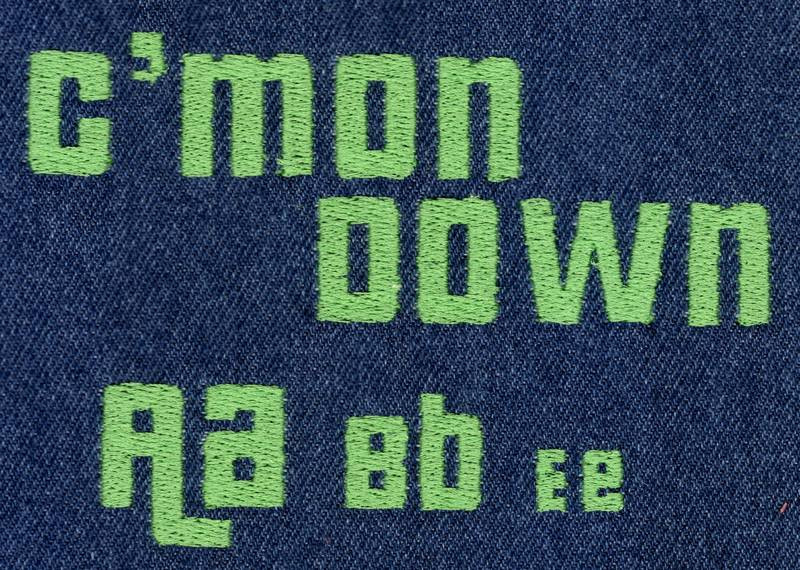
502 C'mon Down Mini Fill Font
C'mon Down Mini Fill Font comes in 0.5", 0.75" and 1" heights. Set height is based on the capital "A" with swoosh and all other characters are sized proportionally. Features uppercase letters, lowercase letters, numbers and four punctuation marks. Some uppercase letters and lowercase letters are identical. All characters are finished in standard Fill Stitch.